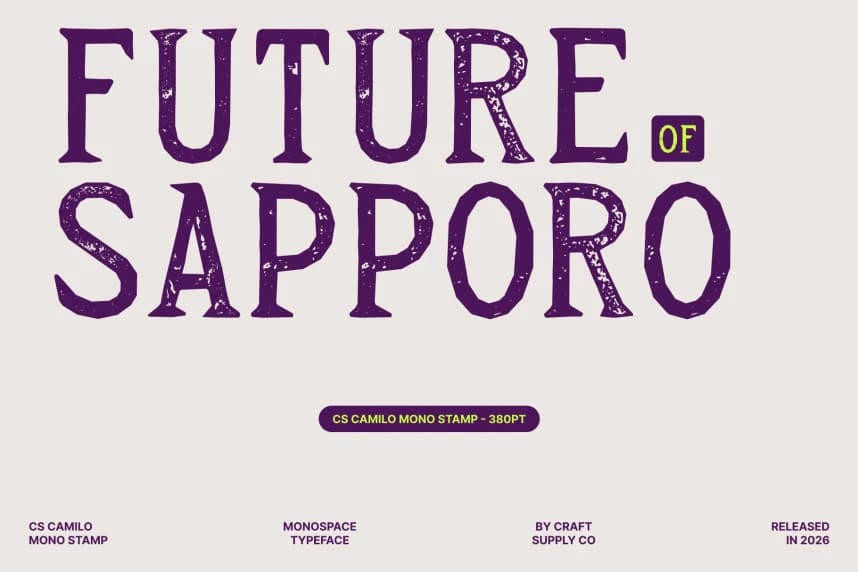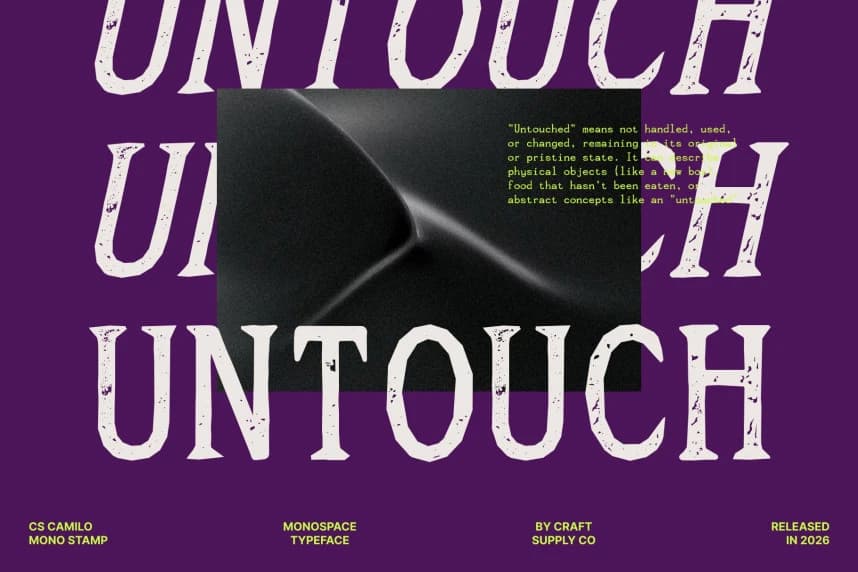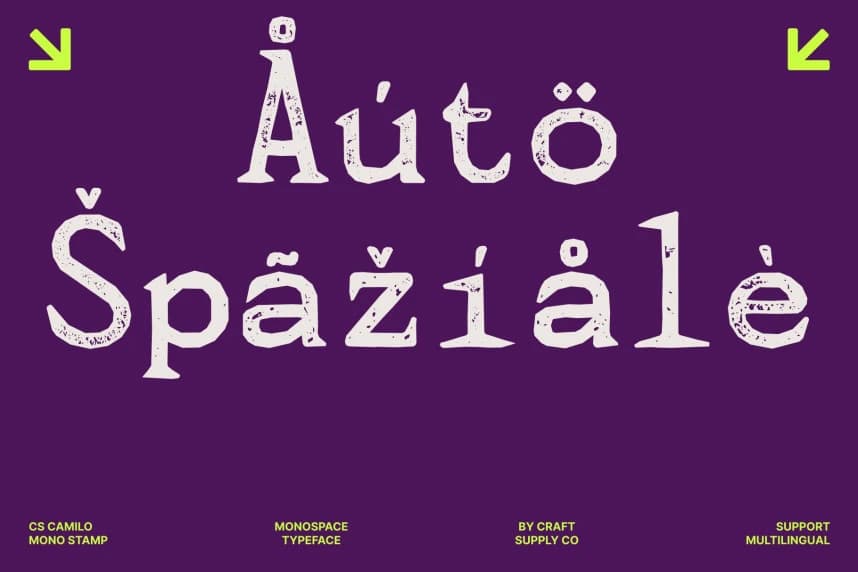
CS Camilo Mono Stamp Font
CS Camilo Mono Stamp Font – Classic Precision with Vintage Texture Monospaced and Condensed Serif with Structured Elegance. This is a refined serif font that combines the discipline of monospaced typography with a condensed structure for efficient